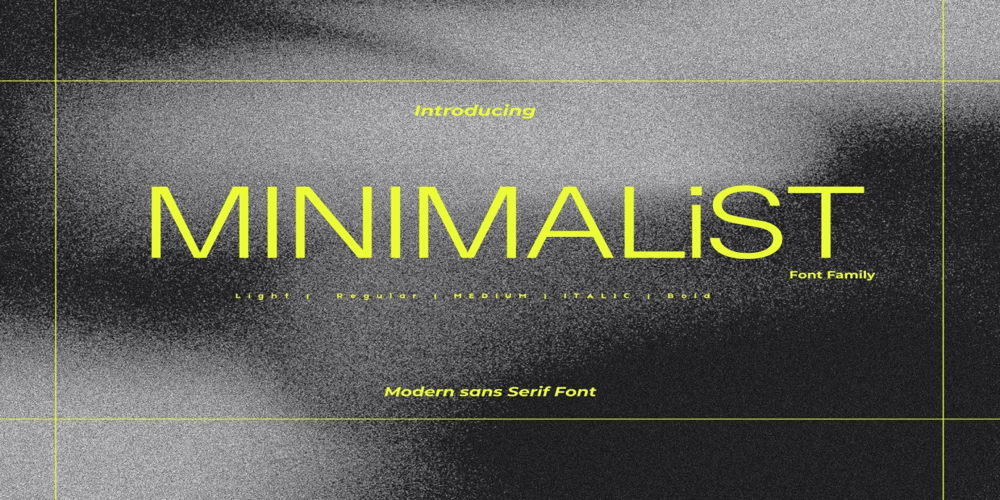
Minimalism Font Family was designed by Gustav F. Schroeder and published by Adita Fonts. Minimalism contains 8 styles and family package options. Meet Minimalist , the commerce branding font. A font of its time to help you connect with your future aspirations. Perfect for web and offline tactics. Minimalist with its heigh x-height and economical character widths, make it ideal for screens. The modern look and feel adds a memorable fresh face to help with brand retention. Don’t settle for bland when you can up-level your branding with Minimalist